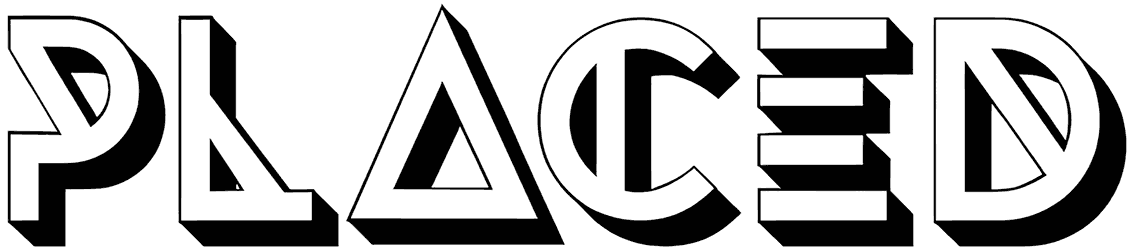
Placed Font
Placed is a fancy font that can be used to create any type of design element, such as social media graphics and banners. With this 3D font, you can begin creating something completely unique and eye-catching. Despite the…
Placed is a fancy font that can be used to create any type of design element, such as social media graphics and banners. With this 3D font, you can begin creating something completely unique and eye-catching.
Despite the lack of lowercase letters, this futuristic, geometric font is one of those tools that can help bring focus to any endeavor. Are you interested in checking out the rest of our list, which is loaded with more freebies just like this one?